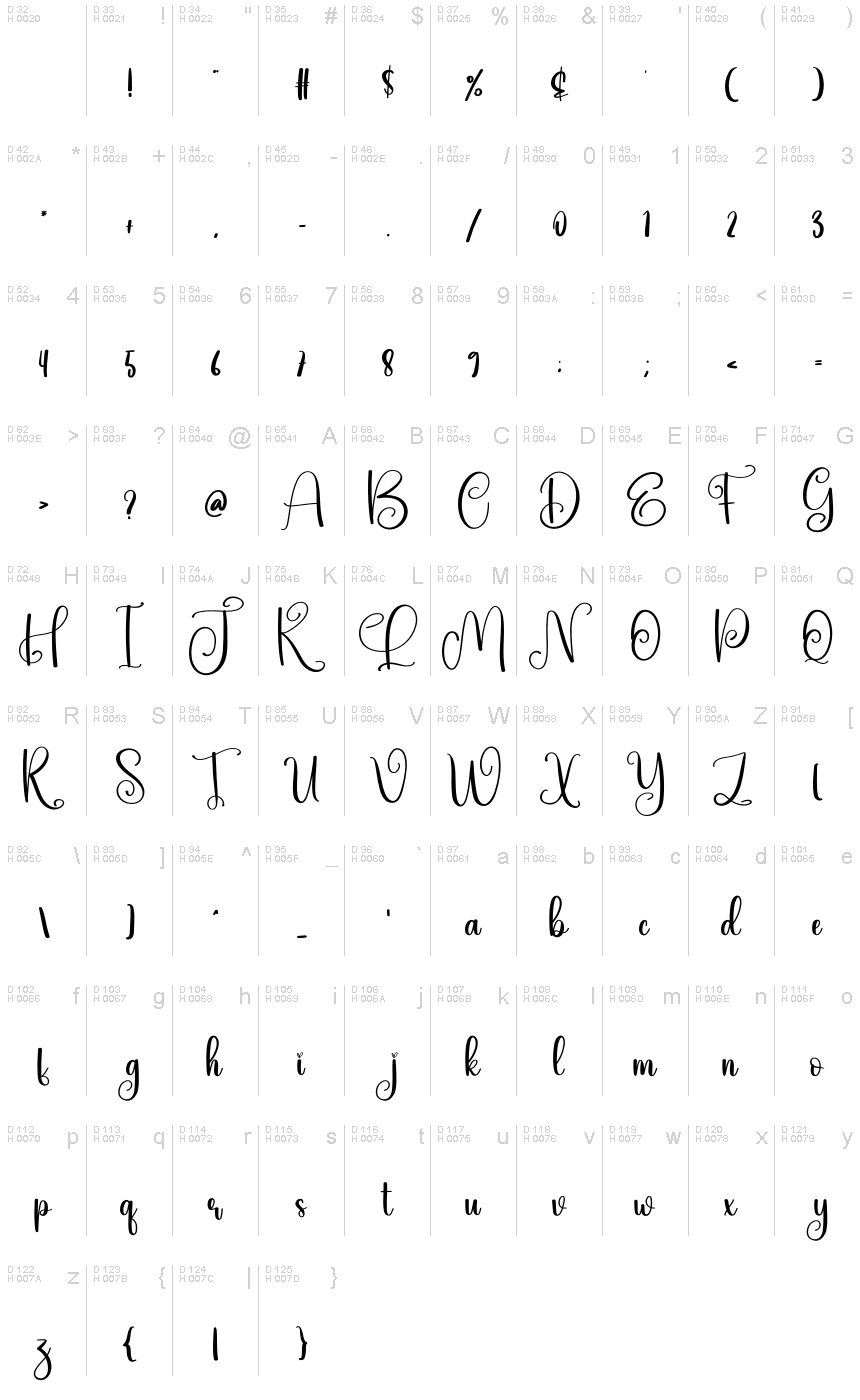
Lonely
Lonely, a creation by Scratchones, is a calligraphy font that exudes elegance and emotional depth. The strokes carry the grace of traditional calligraphy while infusing a contemporary twist, making it both timeless and modern. Its flowing letters are reminiscent of handwritten correspondence, evoking nostalgia and personal touch.
The font's artistic flair makes it perfect for wedding invitations, heartfelt branding, or any project that calls for a touch of sophistication. Lonely's sweeping curves and delicate form lend themselves beautifully to literary covers or upscale packaging designs where an air of exclusivity is desired. This font doesn't just spell words; it tells stories with every line and loop.